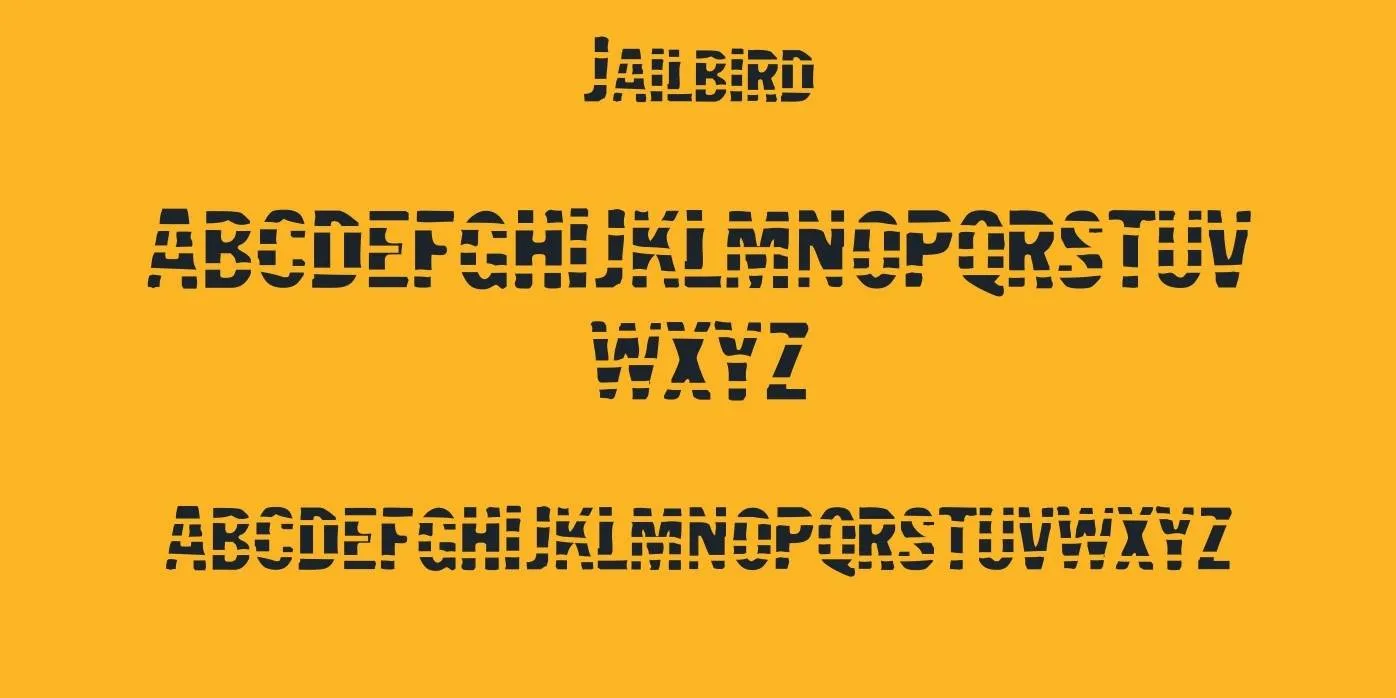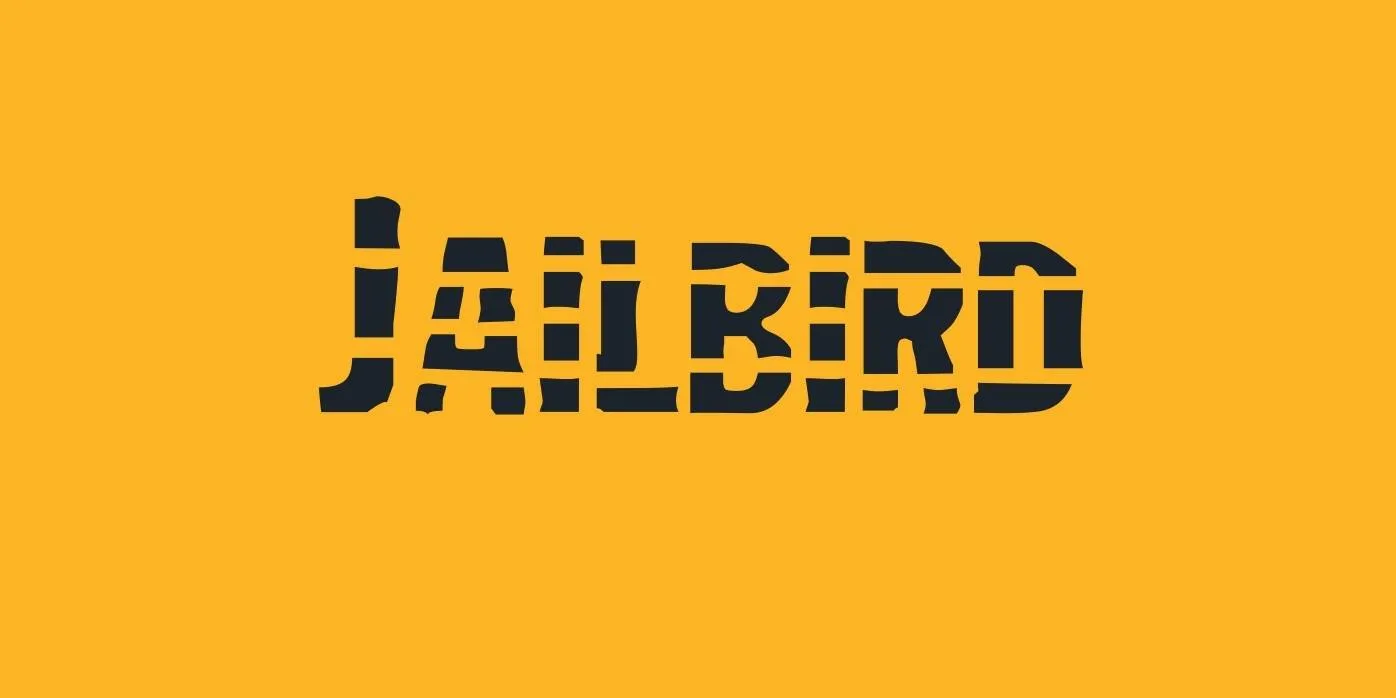
Jailbird Font
Andy Krahling designed Jailbird Font. This is a decorative font and has only one regular style. The font style supports many electronic devices like Android, Apple, computers, Macs, laptops, Linux, IOS, etc. An online font generator is also useful to generate any type font.